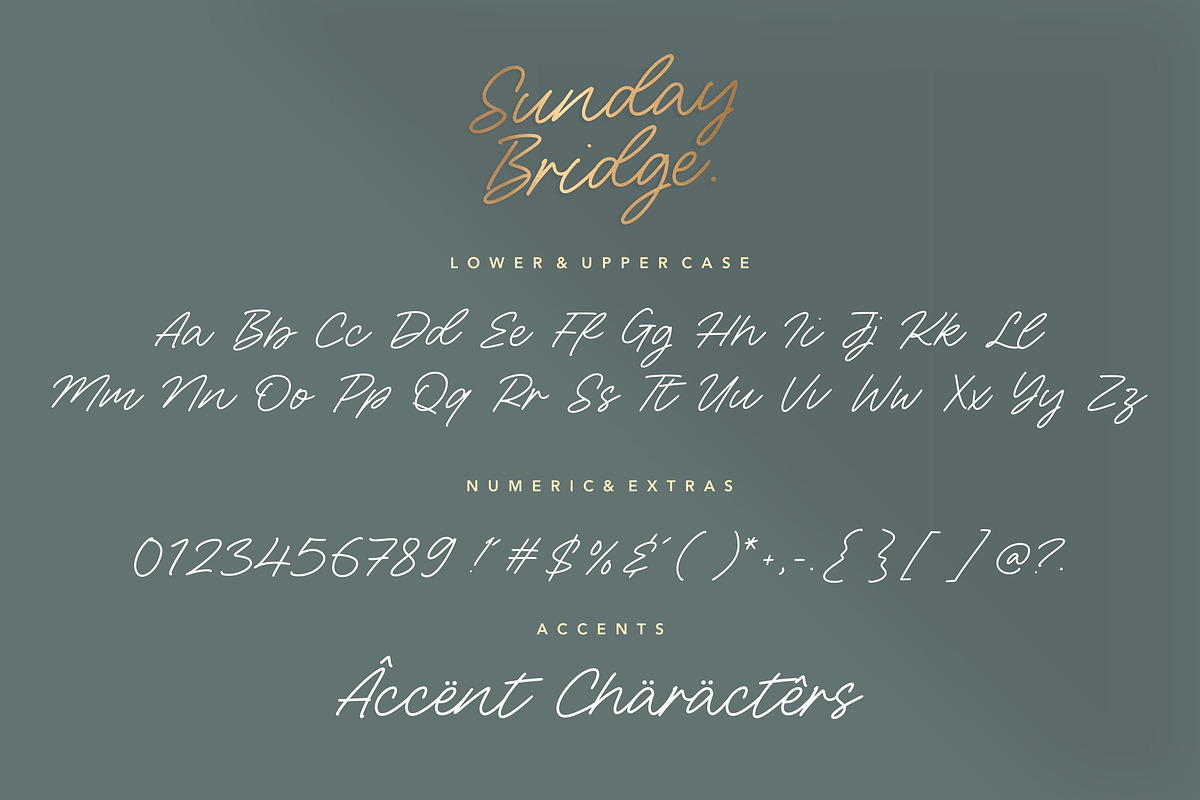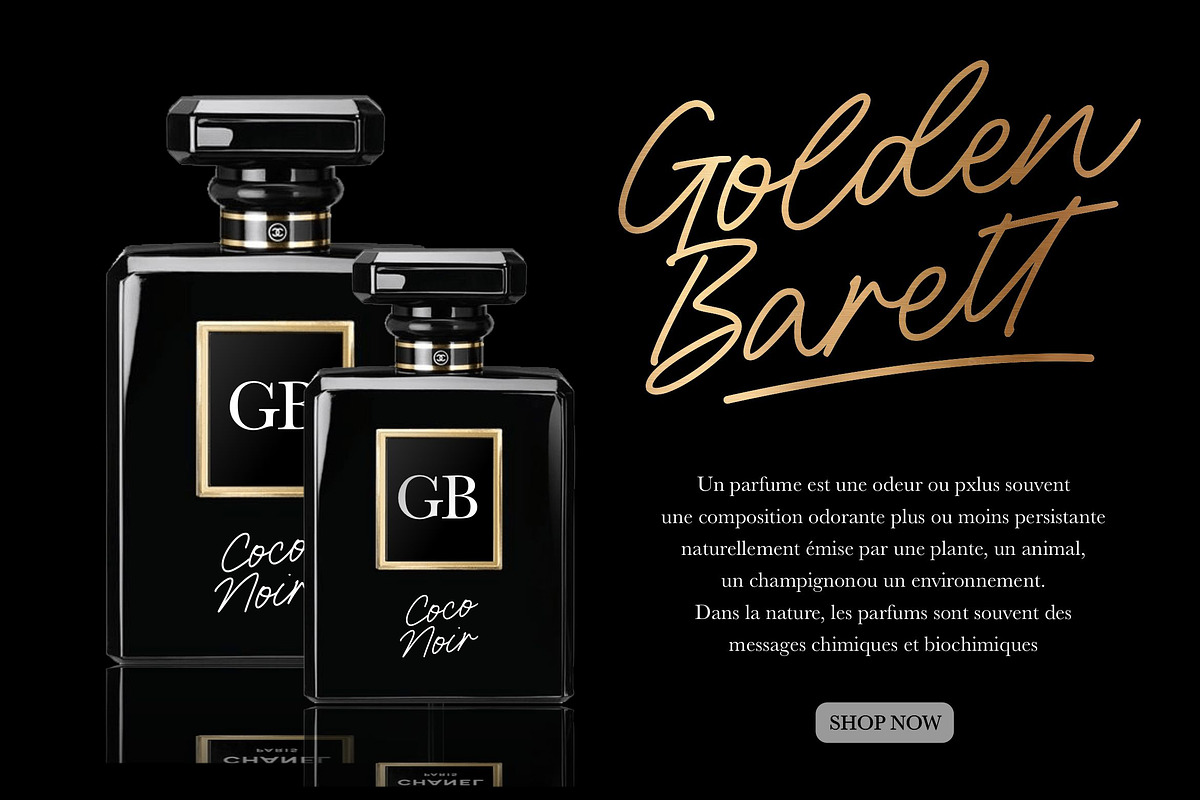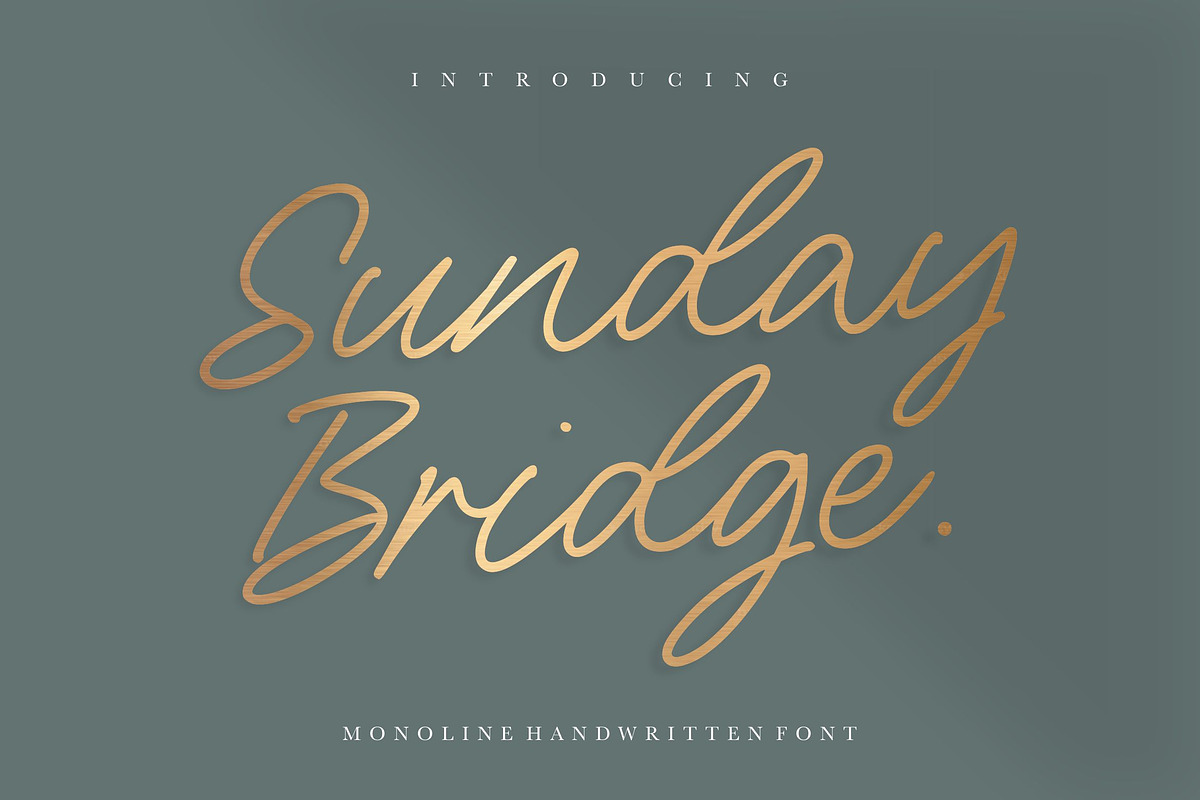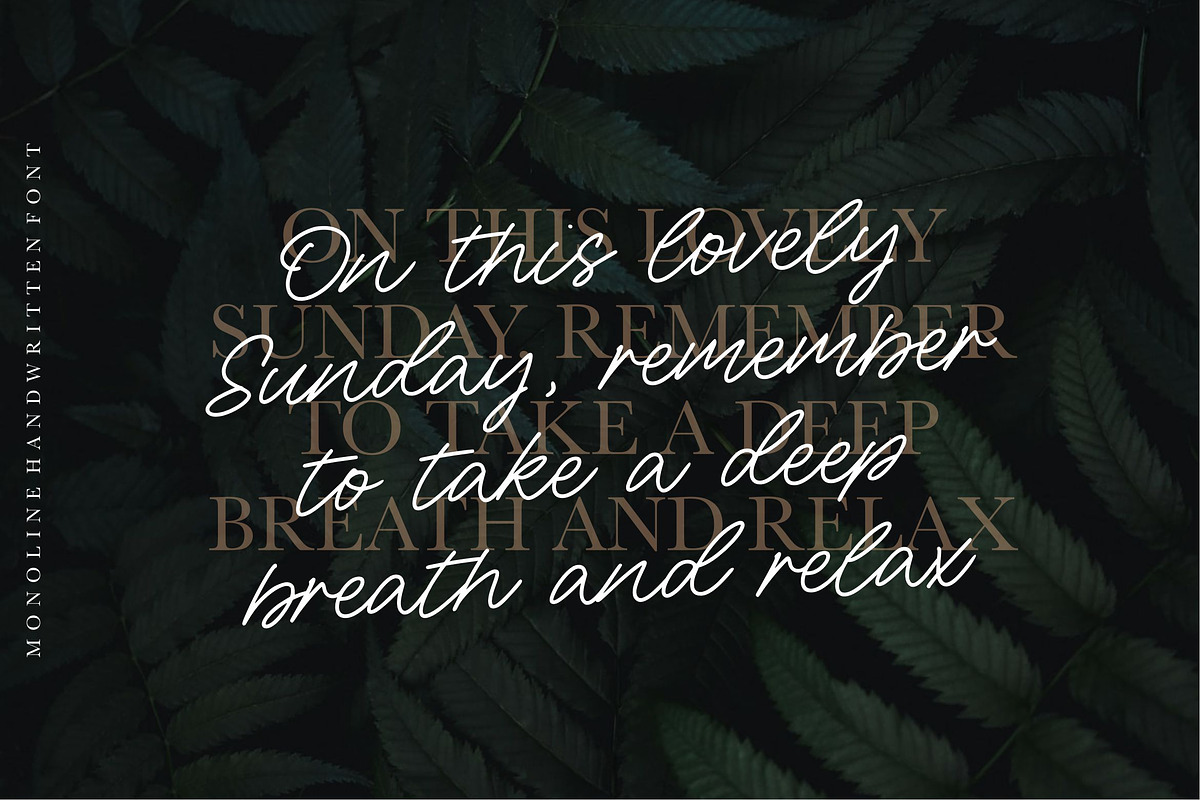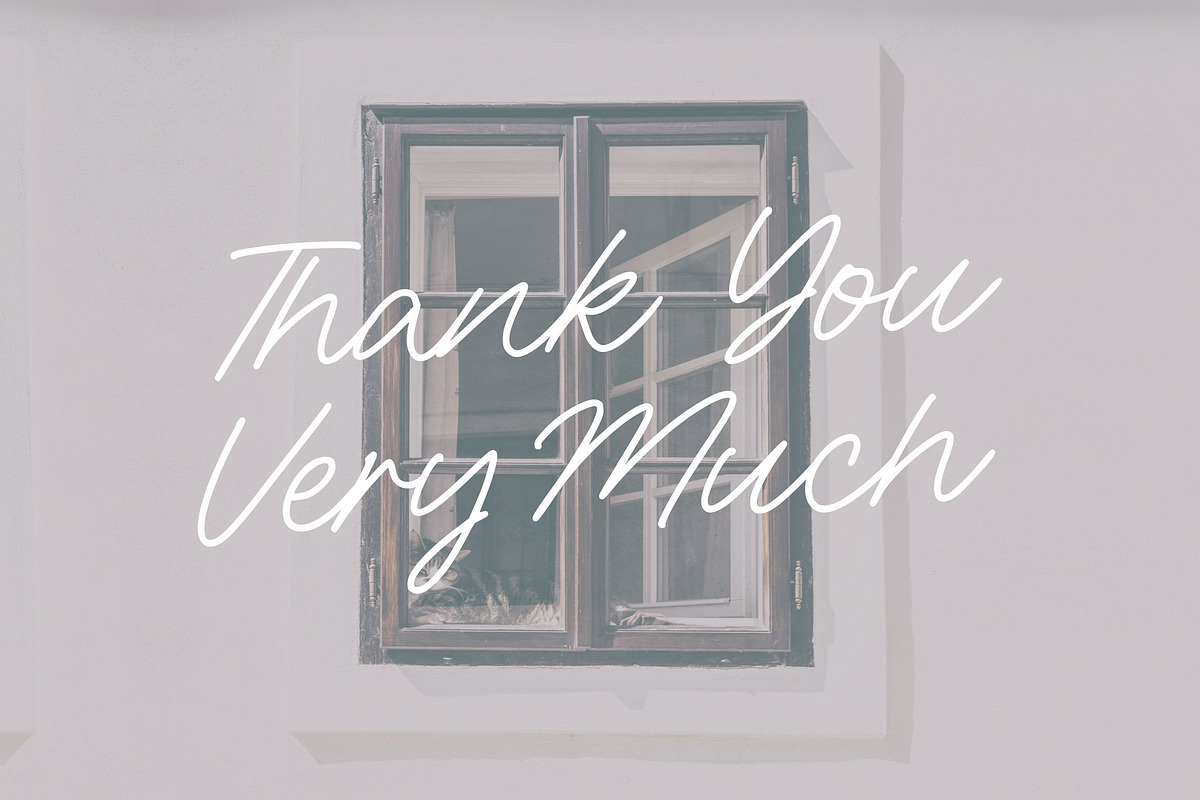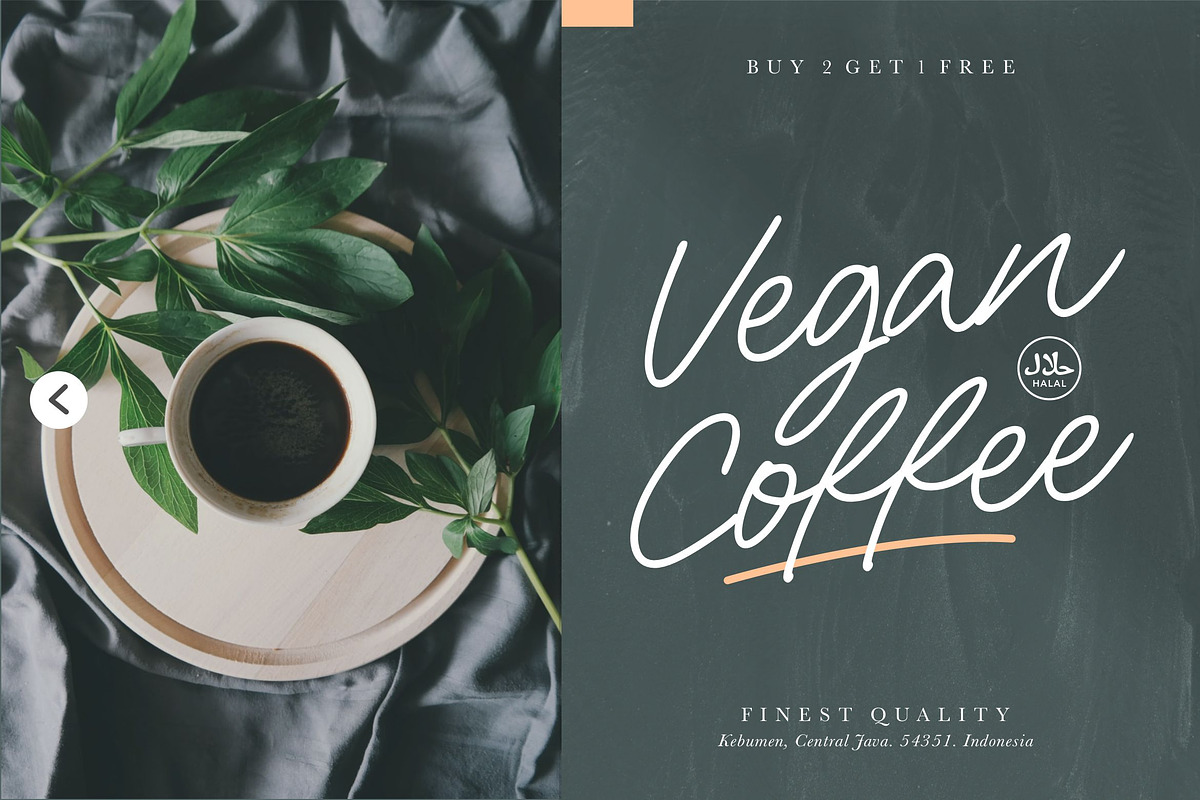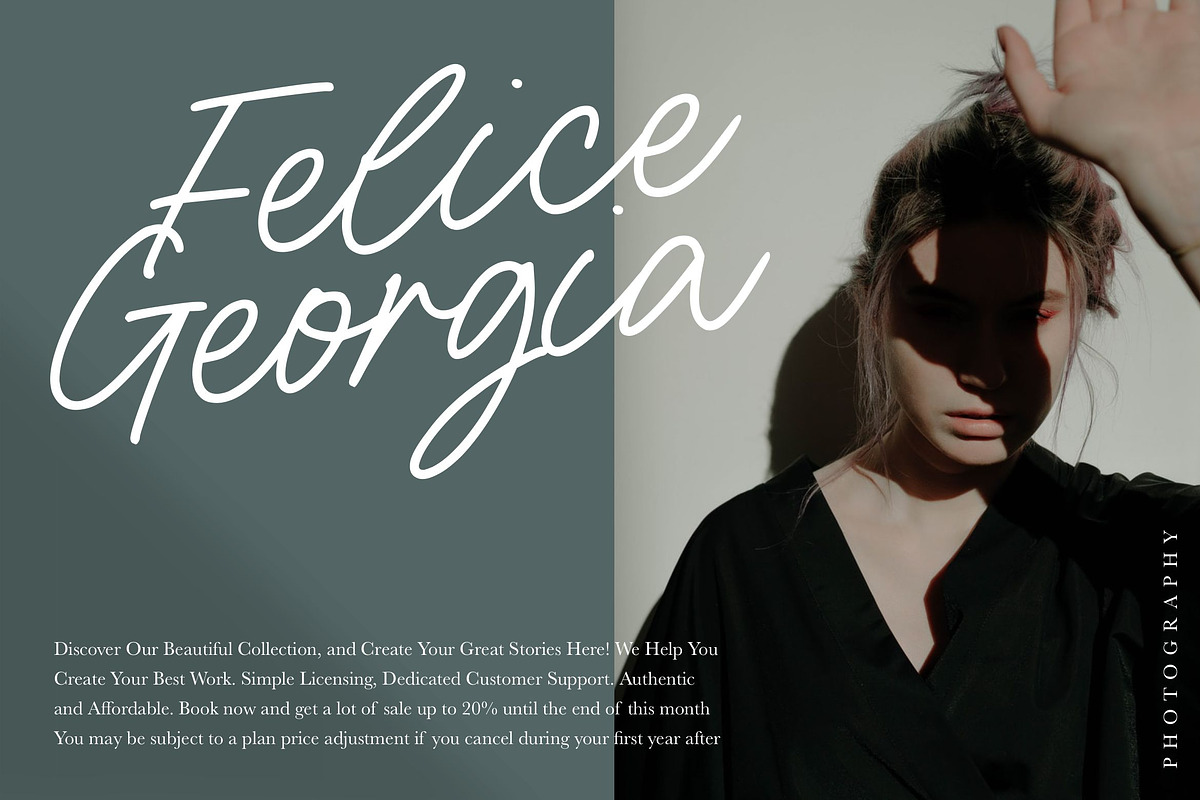
Sunday Bridge - Monoline Handwritten
Introducing by Letterative Studio
Sunday Bridge is a Monoline Handwritten Font
Sunday Bridge is a modern handwritten font. Fall in love with its completely different and timeless style and use it to create beautiful designs!